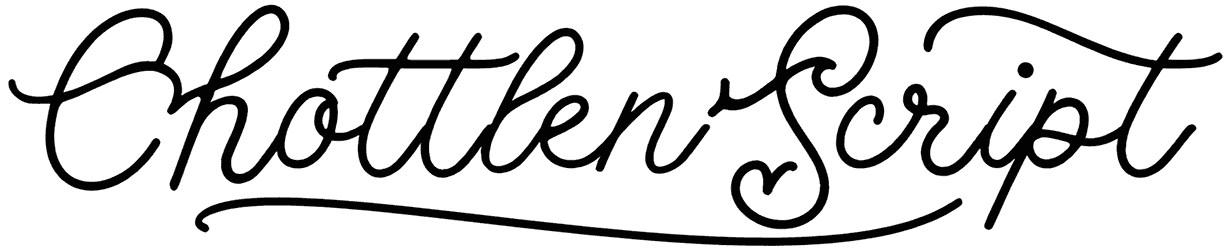
Chottlen Script Font
Chottlen Script has everything you need to make your content look more beautiful. This script font is exaggerated in the use of decorative elements and twists, so it has lost some of its readability.
But this exaggeration can significantly help your brand stand out and attract every viewer to your project from the very beginning. This is why sophisticated people use this wedding font to decorate t-shirts, packaging, stationery, and toys; the need for numbers will not limit them.
http://mn.sg/chottlen-scriptUse * and # after any letter to make a tail.
Example: Signature#
Use _ anywhere in a word to make a swash.
Example: Love_letter
Use multiple underscores to make different swashes.